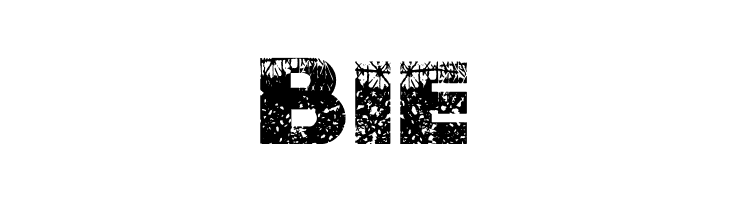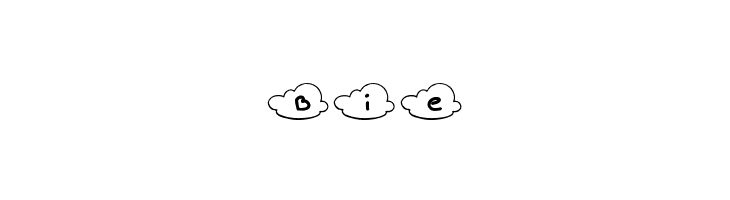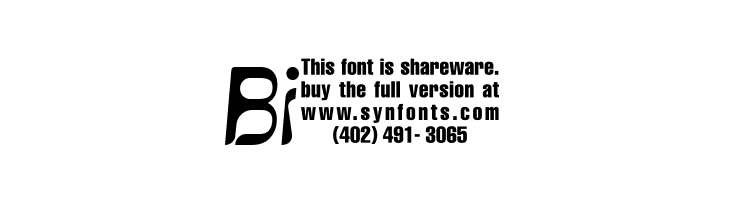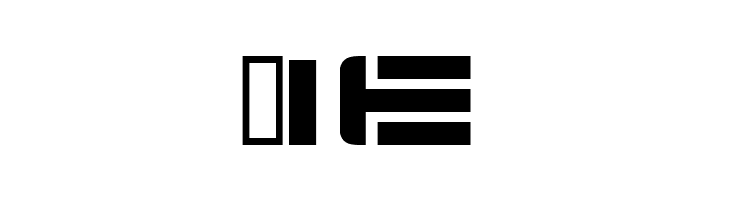
• NowyGeroy4FShadow
A bold, three-dimensional font with shadow effects, combining retro and modern styles.
• NowyGeroy4FShadow-Italic
A bold, three-dimensional font with a shadow effect and italic style, perfect for attention-grabbing designs.
• NP Grand Opening F0NTDoTCoM
• Nu Kei
A modern geometric sans-serif font with clean lines and balanced proportions.
• Nu School Munitions
• NUAZ
A bold, dotted font with a geometric and playful style.
• nubes
A playful font with characters enclosed in cloud shapes, perfect for whimsical designs.
• NUBLES
A playful, cloud-like font with rounded, bubbly characters.
• Nuclear Accident
• NudE UNPAID DEMO